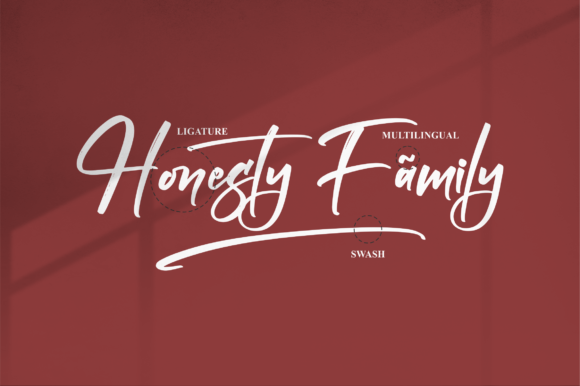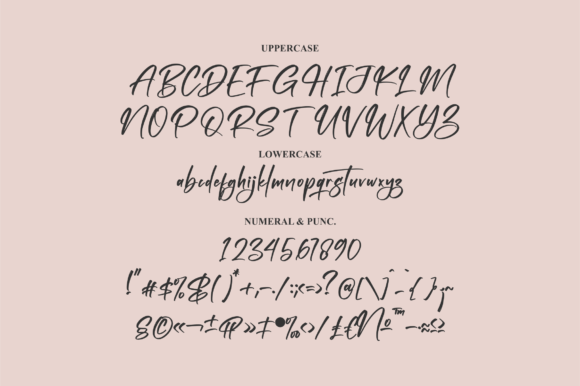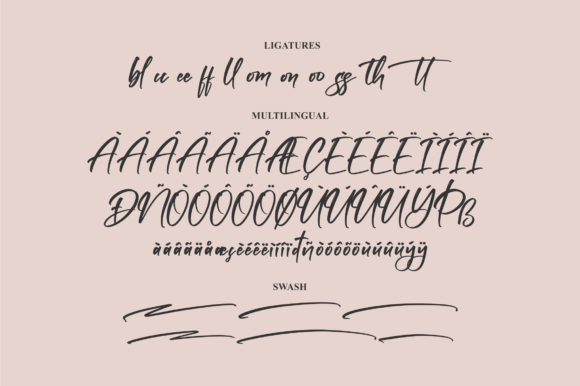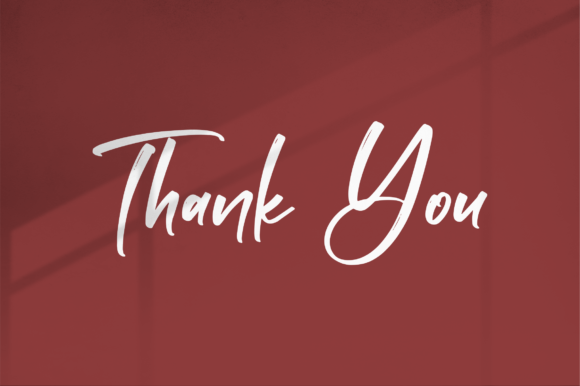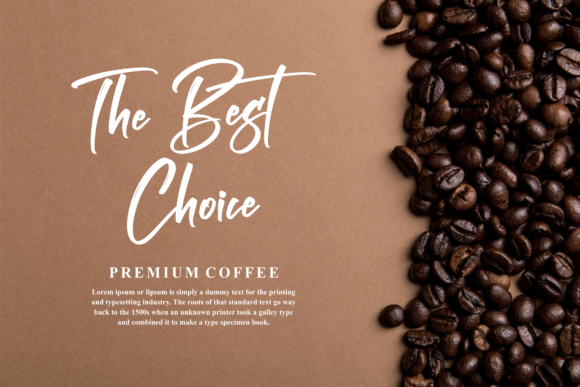
About Harthenlie Font
Harthenlie is a stunning script font that adds a touch of beauty and elegance to a wide range of design projects. Its versatile style makes it a perfect choice for various applications, ensuring that your creations stand out with a captivating and unique aesthetic.
This font’s graceful and flowing letterforms make it well-suited for logos and branding projects. Whether you’re working on a new business identity or revamping an existing one, Harthenlie can help you create a memorable and sophisticated brand image that leaves a lasting impression.
Homeware designs and product packaging can benefit from the charm and elegance that Harthenlie brings. Its delicate strokes and intricate details can enhance the visual appeal of labels, tags, and packaging, making your products look more inviting and attractive.
For mugs, quotes, posters, and shopping bags, Harthenlie adds a personalized and artistic touch. Its script style exudes warmth and creativity, allowing you to create eye-catching designs that draw attention and convey your message effectively.
T-shirts and book covers can also benefit from the unique flair of Harthenlie. Whether you’re designing apparel with a stylish statement or creating a captivating book cover, this font can elevate your designs and make them more engaging.
Special events like name cards, invitation cards, and greeting cards can be made even more memorable with the elegant and charming qualities of Harthenlie. Its script style adds a touch of sophistication to your event materials, creating a sense of anticipation and excitement.
Incorporating Harthenlie into your photography watermark adds a signature touch to your images, making them instantly recognizable and enhancing your brand’s identity.
With its versatility and graceful aesthetics, Harthenlie is a font that can truly enhance the overall appeal of your projects, no matter the context. Its ability to blend seamlessly with different design elements and materials makes it a valuable asset for any creative endeavor that requires a beautiful script font.